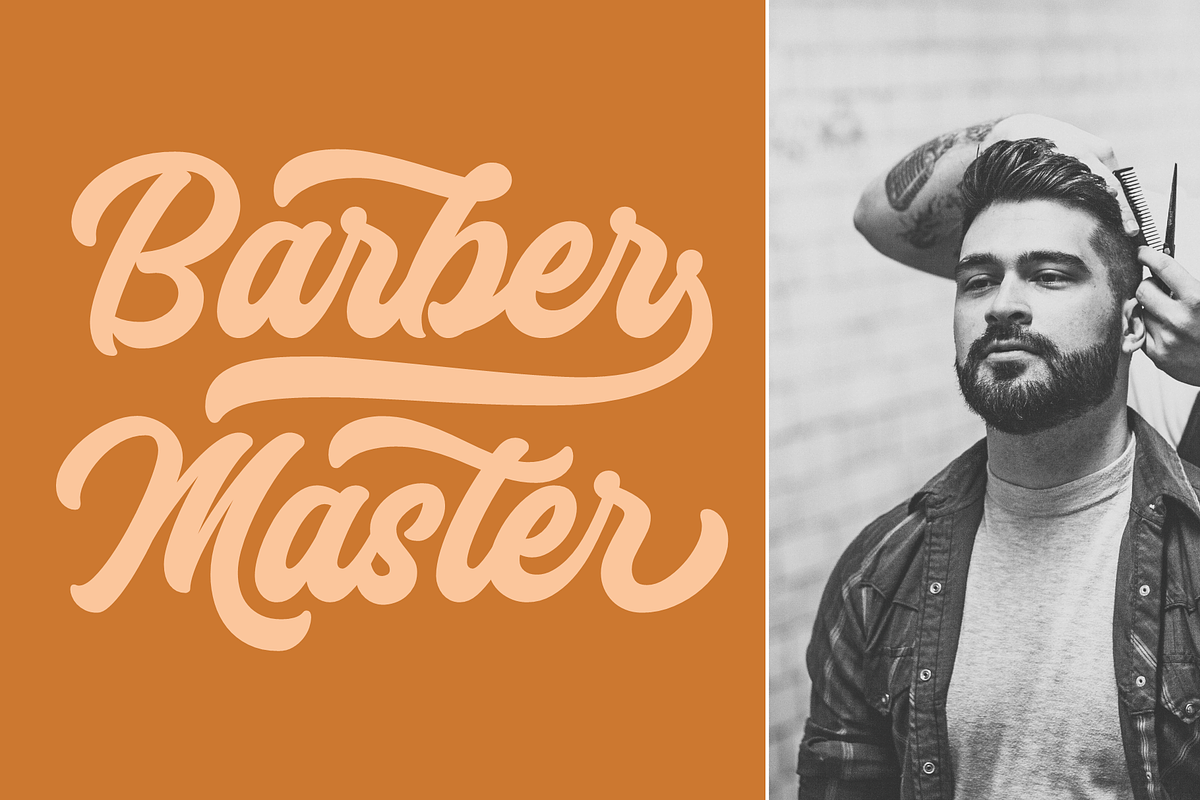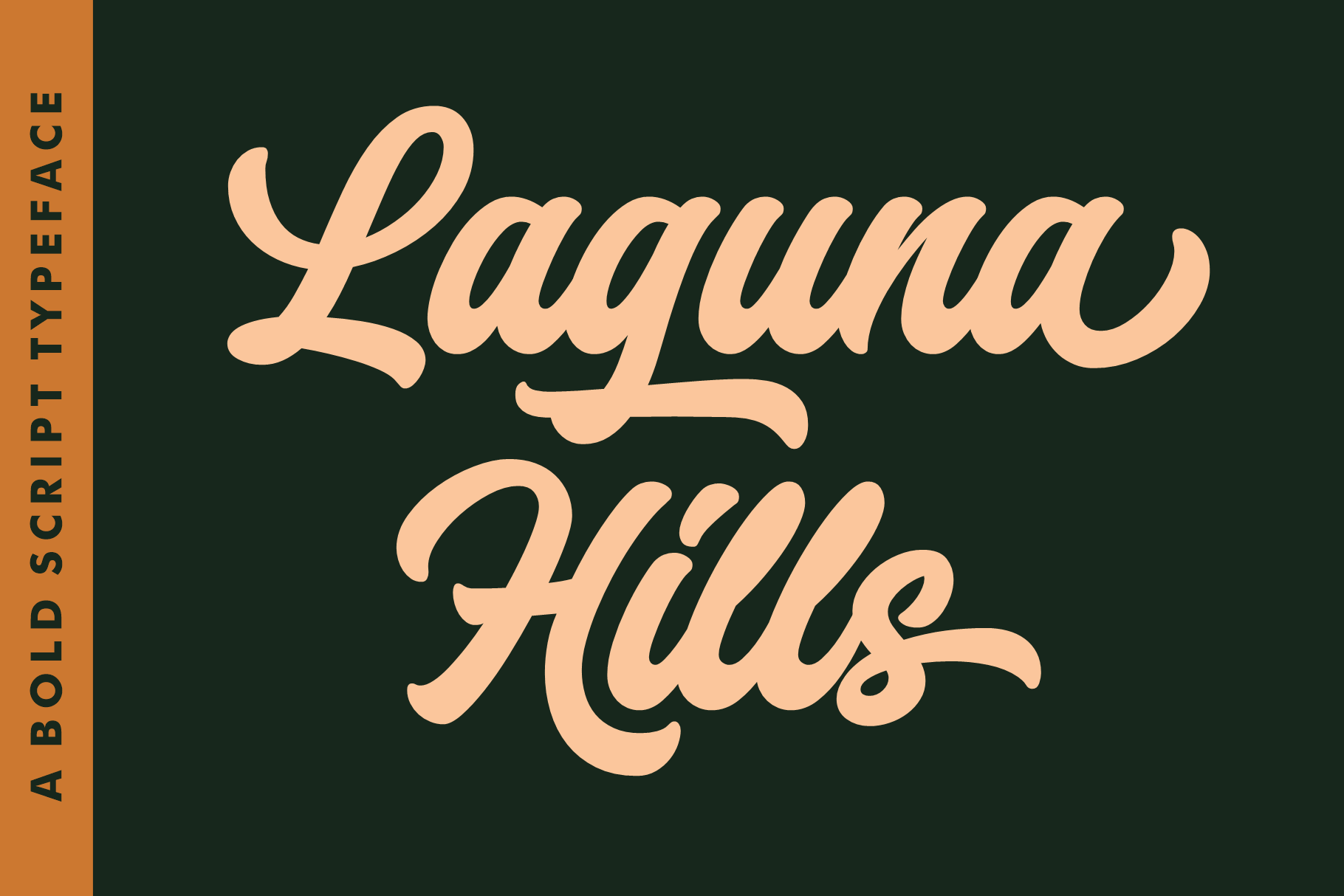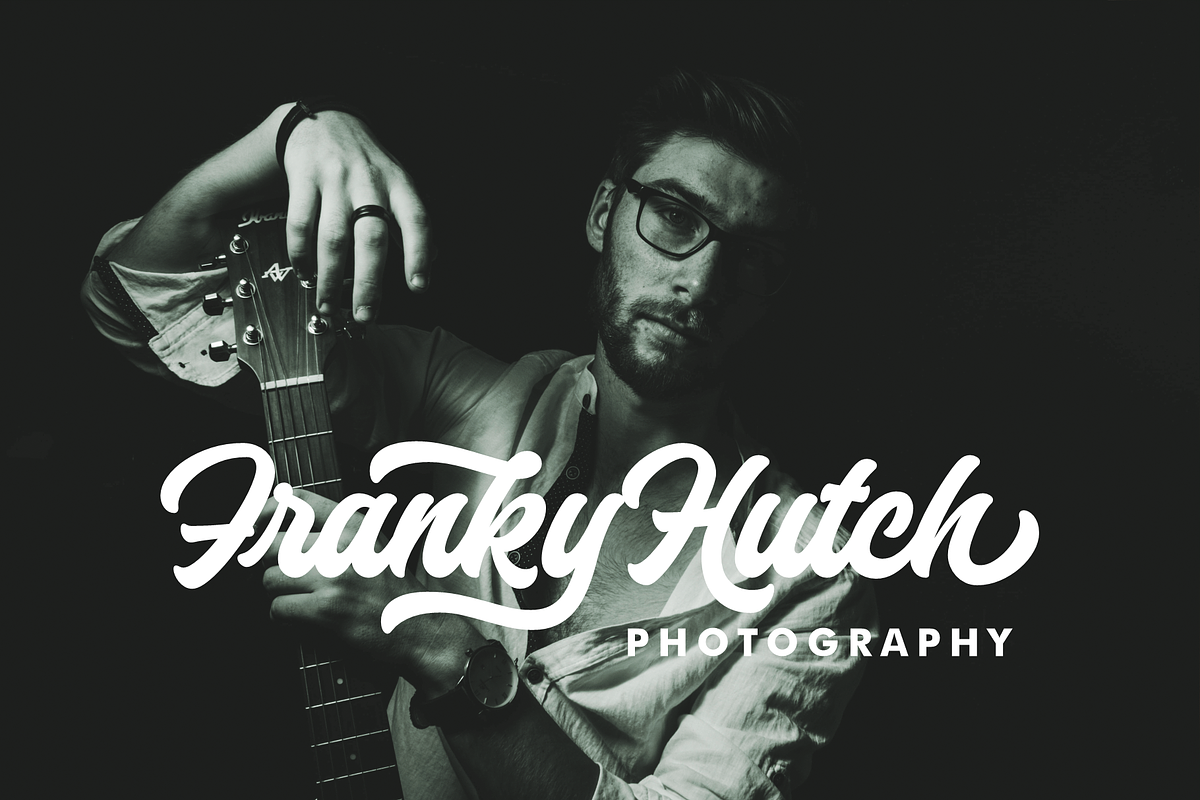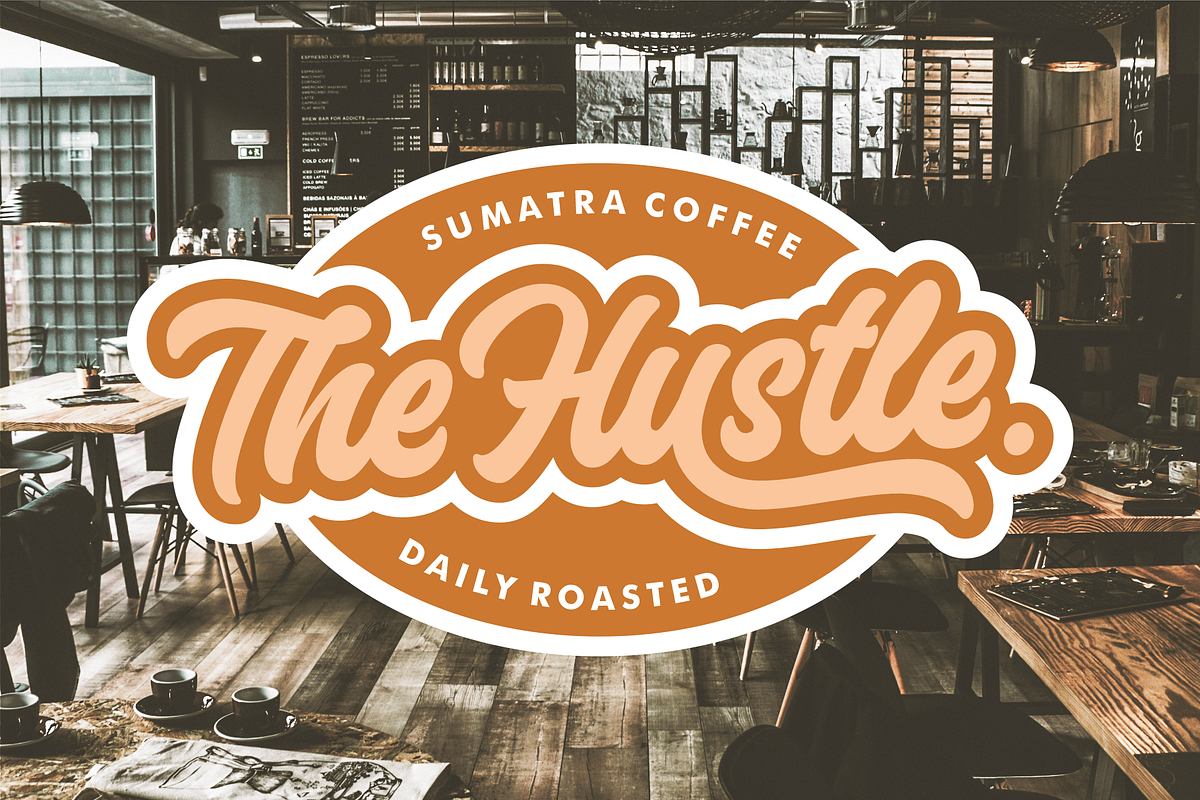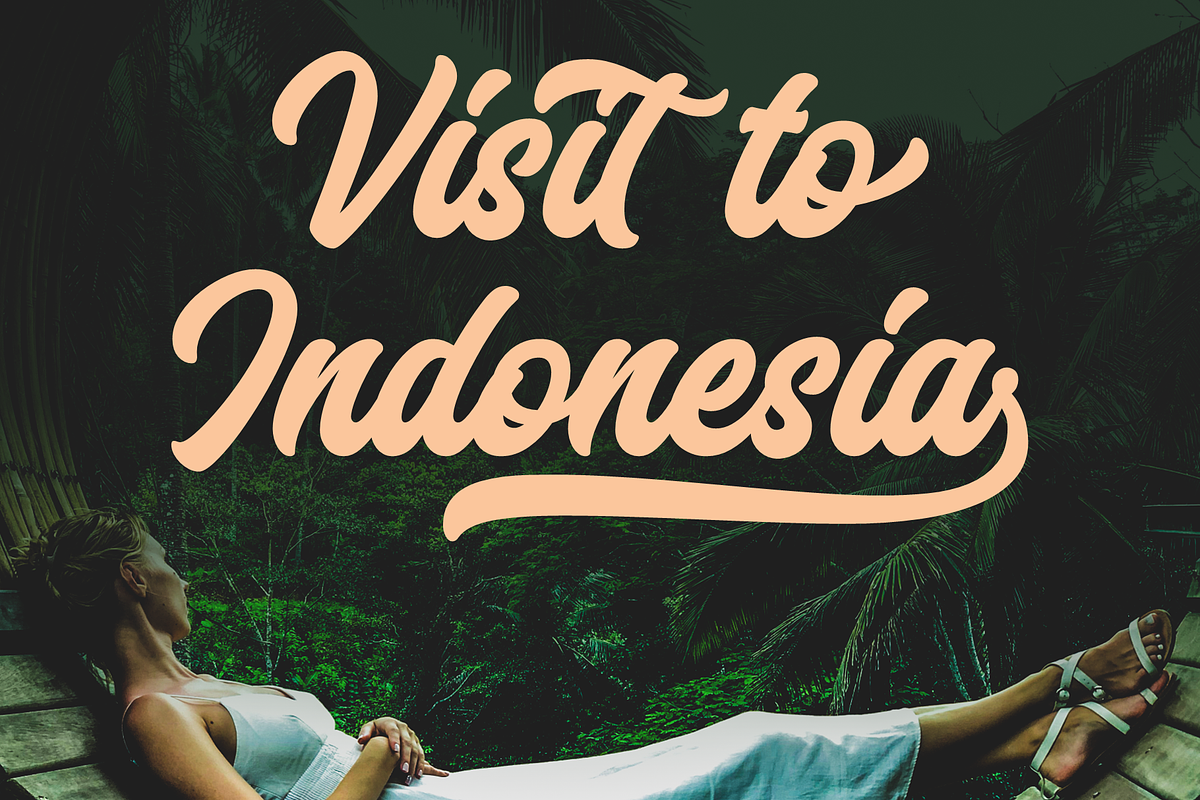
Laguna Hills Font
Laguna Hills Font is a connected script font with clean lines, smooth curve combined, and dramatic movement. It’s perfect for creating hand-made lettering typography in an instant. The special letter gives your design some extra flair, which can be used to create awesome vintage designs or brush style designs. If you are looking for something unique to help add coolness and beauty to your design, then Laguna Hills Font is the right choice!
Laguna Hills Features:
- A full set of upper & lowercase characters
- A full set of upper & lowercase characters (Alternates)
- Multilingual symbols